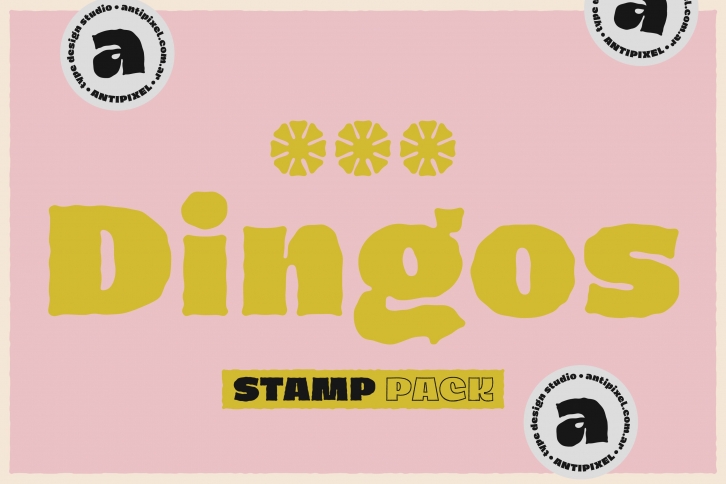
Dingos Stamp Pack is a trendy and unique font with an authentic style. It was designed by antipixel and it's a great choice for creative people who need such a font. It was released on March 27, 2020 and the file size is 16.93 MB. Dingos Stamp Pack will add an organic vibe to any design idea!